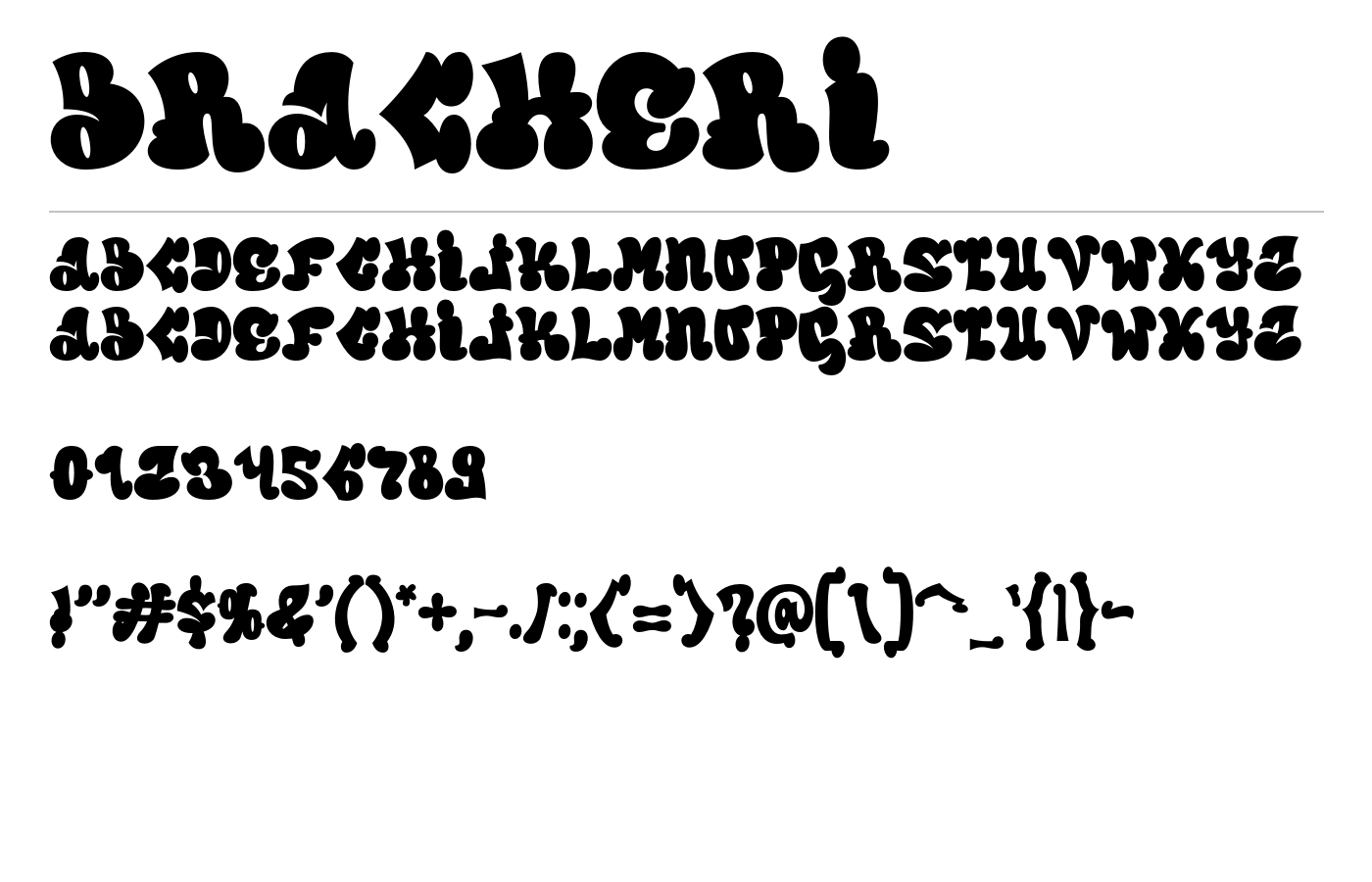
Bracheri is a bold, playful serif font with a heavy weight and condensed width, featuring thick, rounded strokes and unique, whimsical letterforms that give it a fun, vintage vibe. Its distinct shapes and high contrast make it ideal for eye-catching headlines, logos, and creative packaging where a bold, quirky personality is desired. This font works well in designs seeking a nostalgic yet energetic feel, perfect for brands that want to stand out with a joyful and memorable style.
Bracheri Font
About Bracheri Font